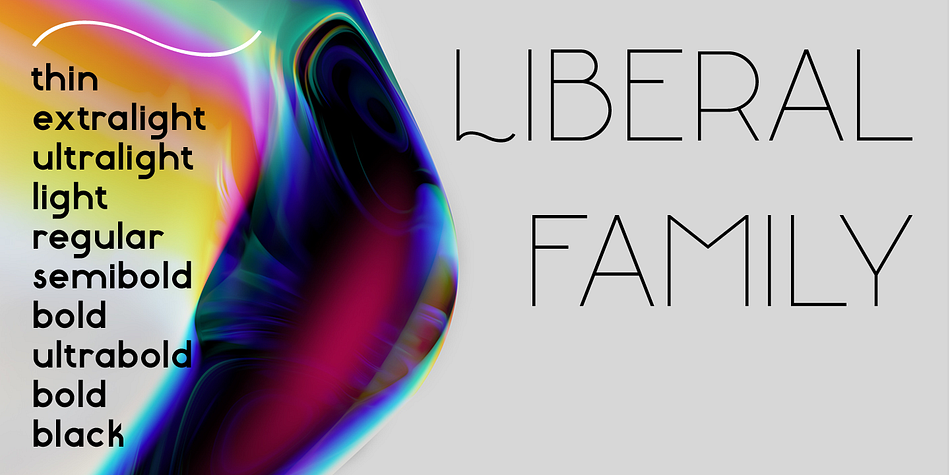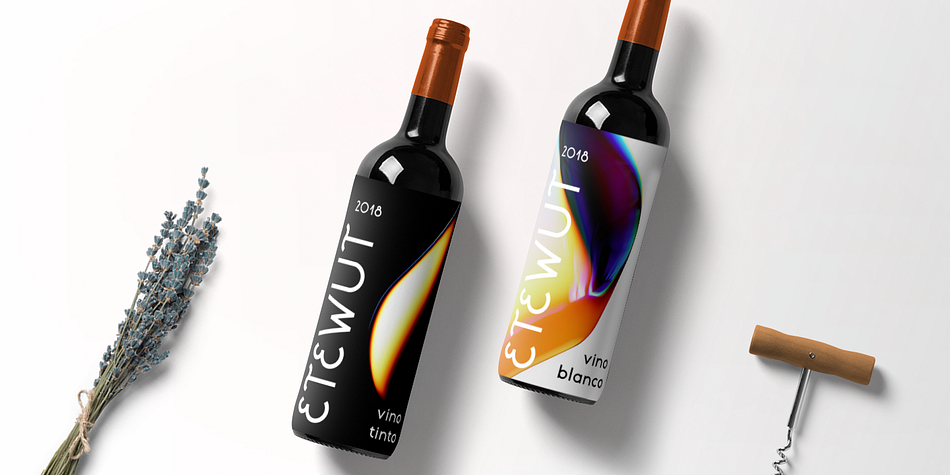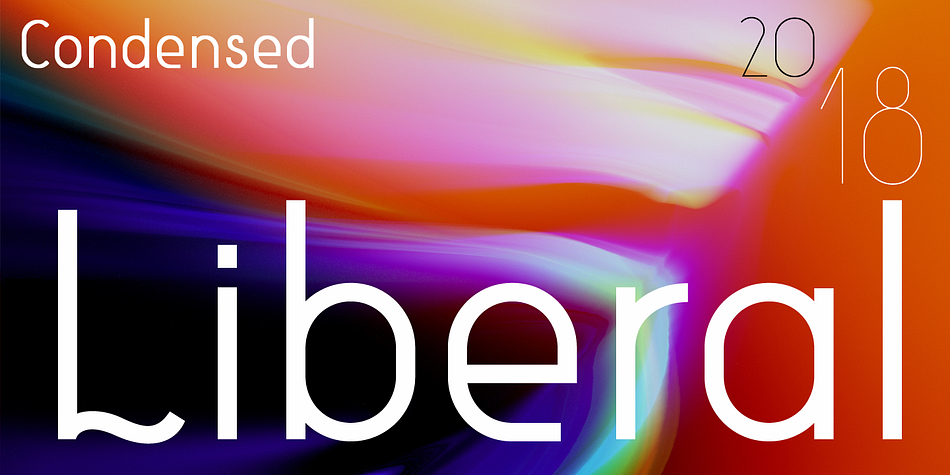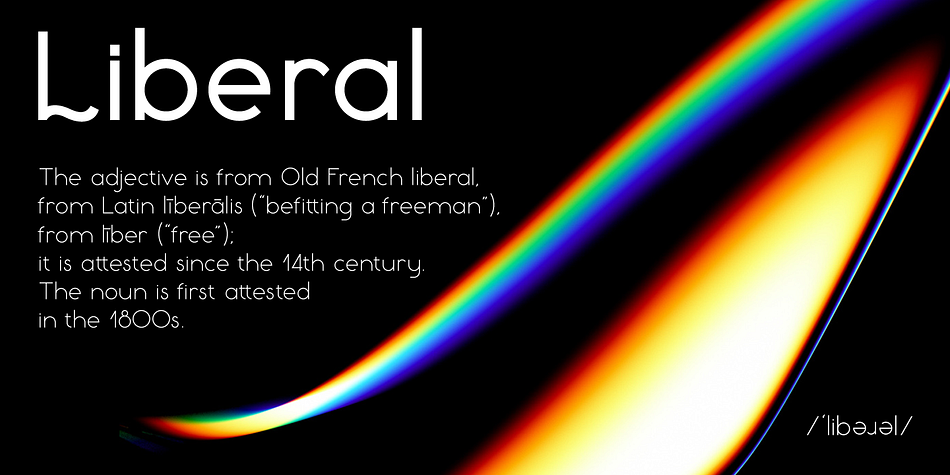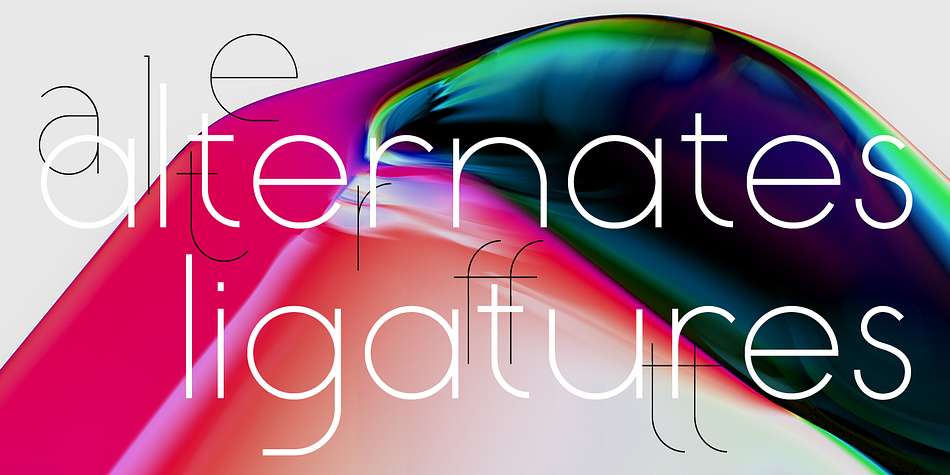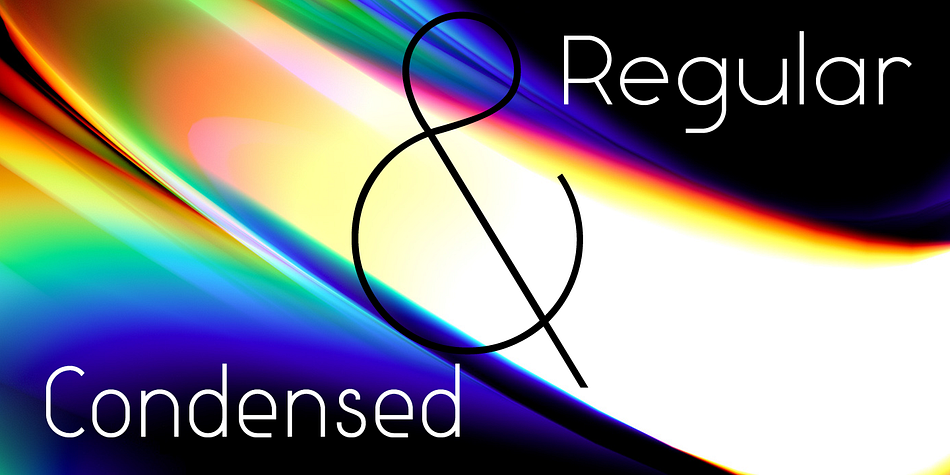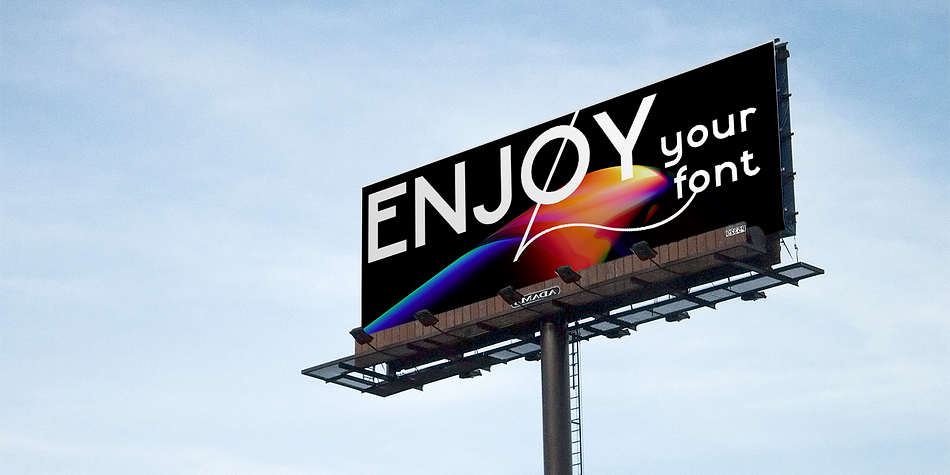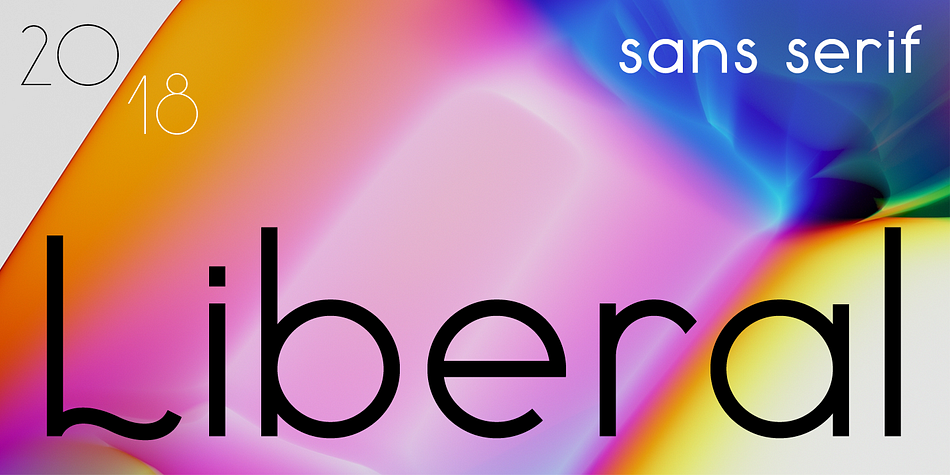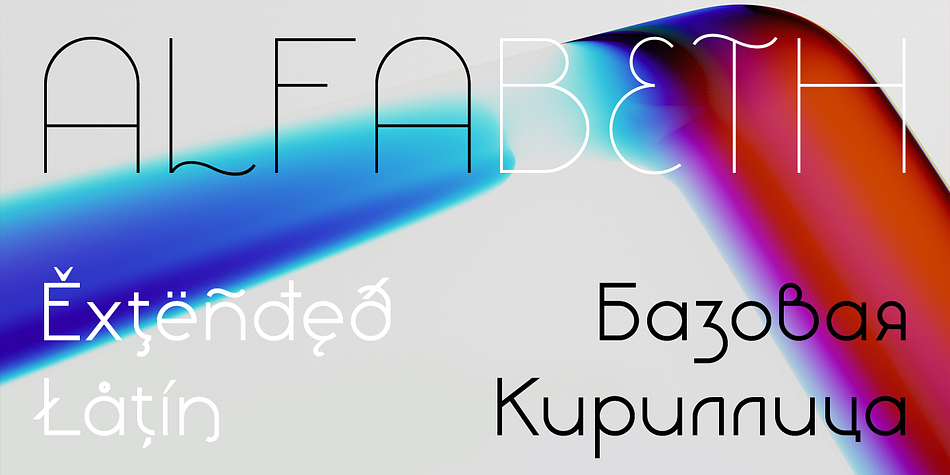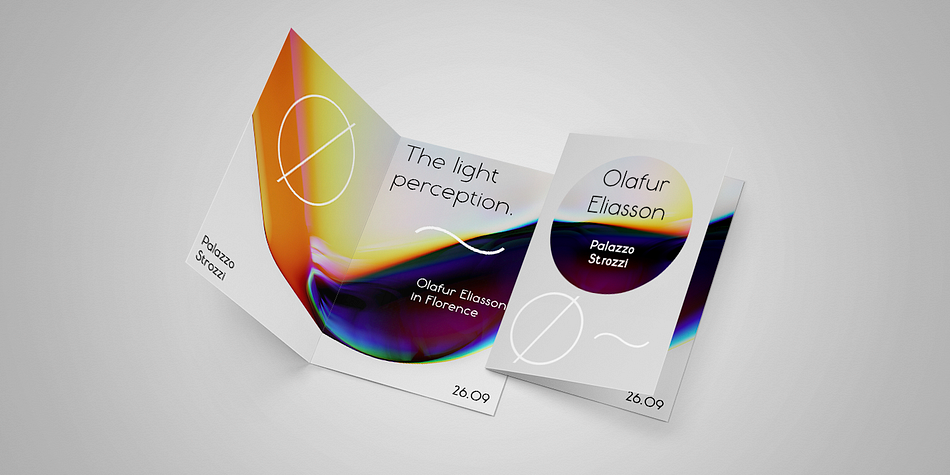
Designed by Alex Etewut, Liberal is a sans serif font family. This typeface has twenty styles and was published by Etewut.
Liberal typeface is a sans serif monoline that includes:
• normal and condensed fonts
• 10 styles from thin to black
• alternative symbols for each letter of basic Latin
• ligatures
• extended Latin which supports all European languages
• basic Cyrillic